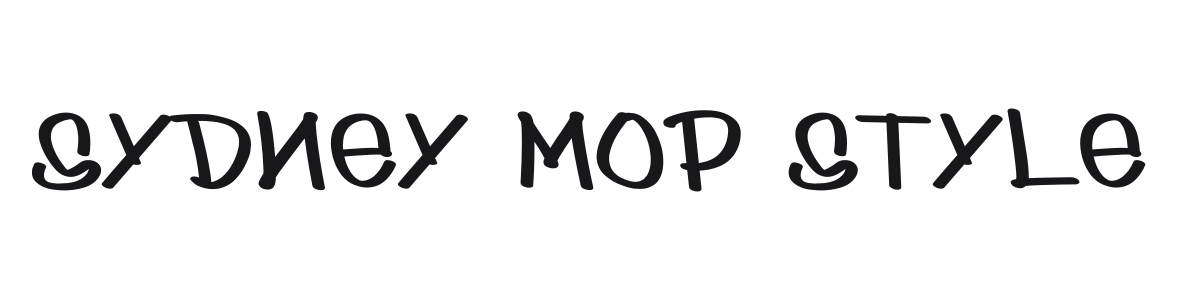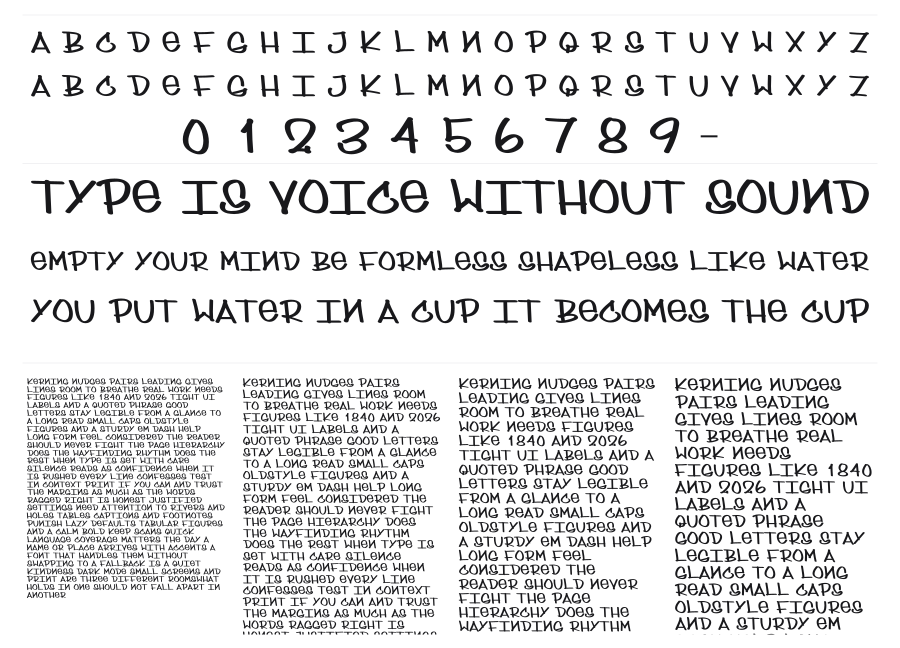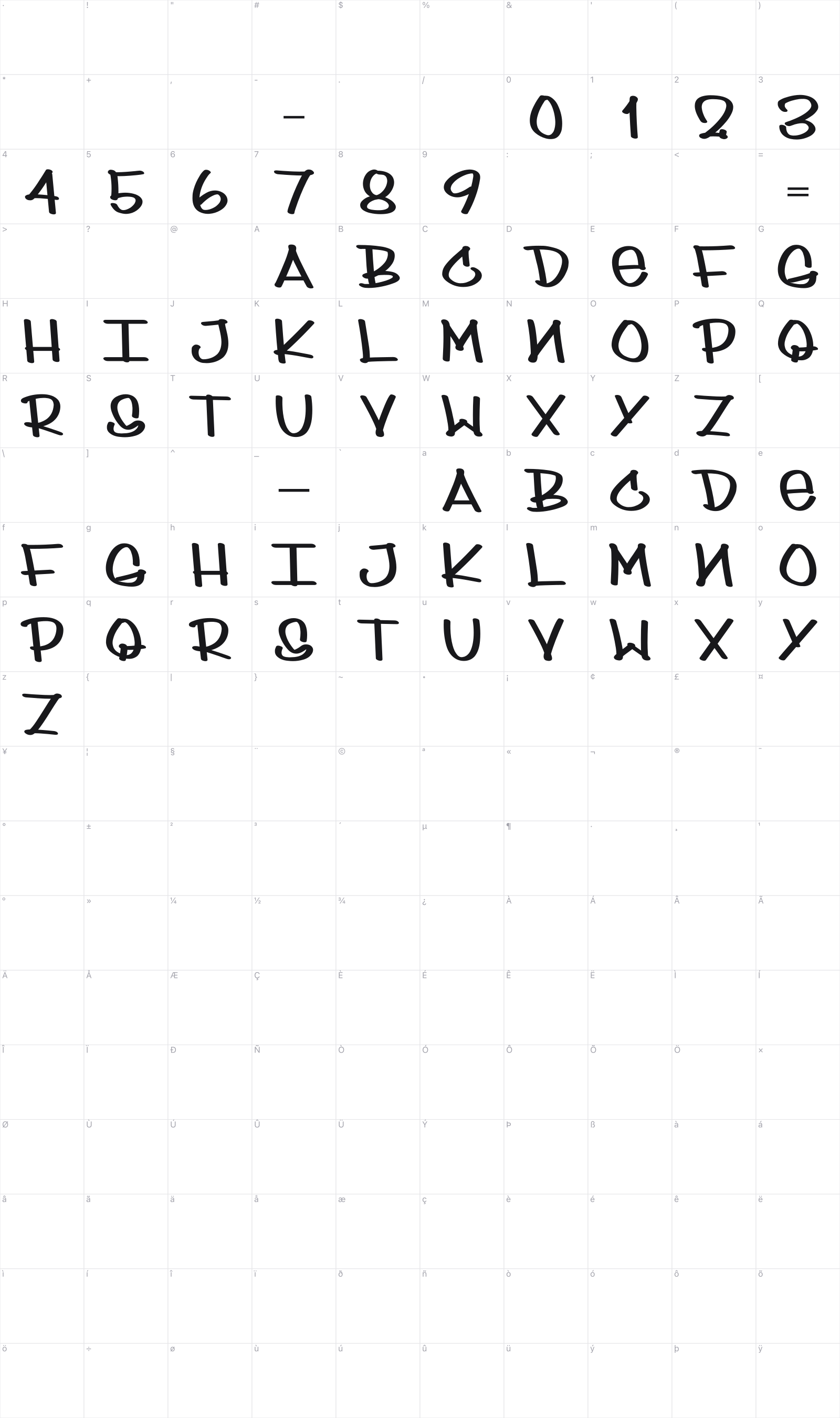
Sydney Mop Style
Sydney Mop Style is a bold casual display font with a hand-drawn personality and loose, brushy character construction. The irregular stroke endings and slight organic variation from letter to letter give it a spontaneous, made-by-hand quality. It carries a cheerful energy that works well in branding, packaging, and anywhere a design needs warmth over precision.